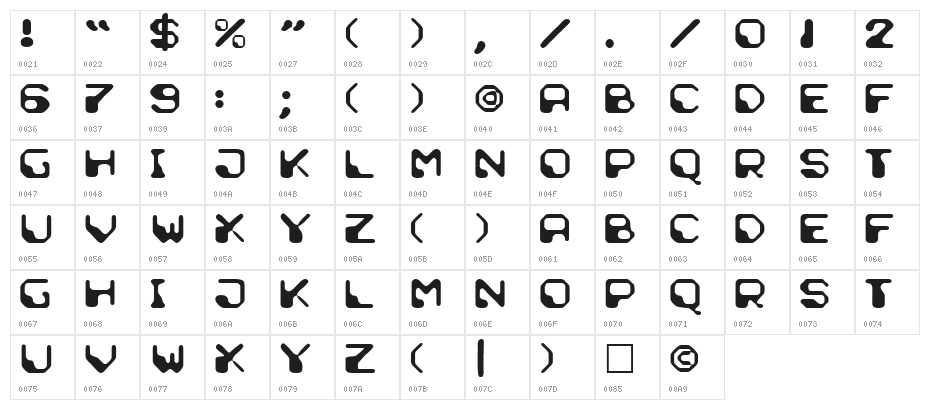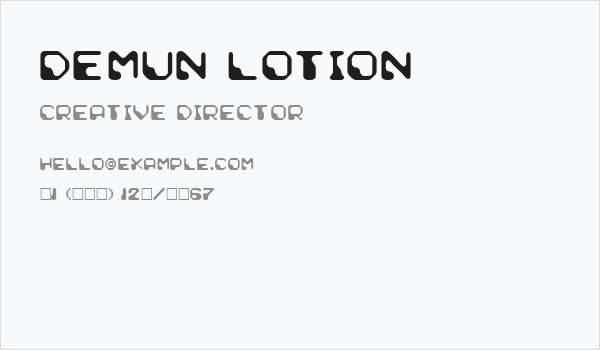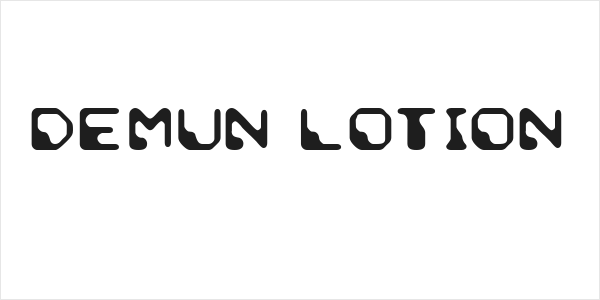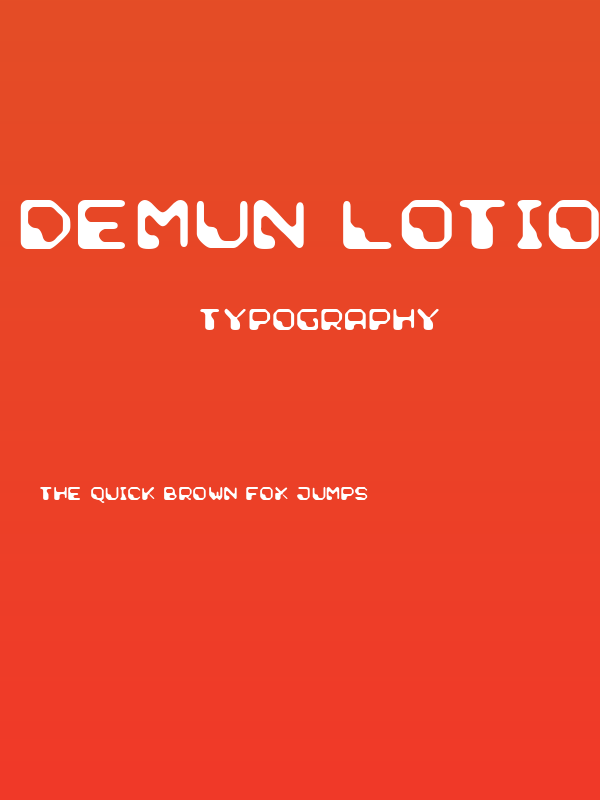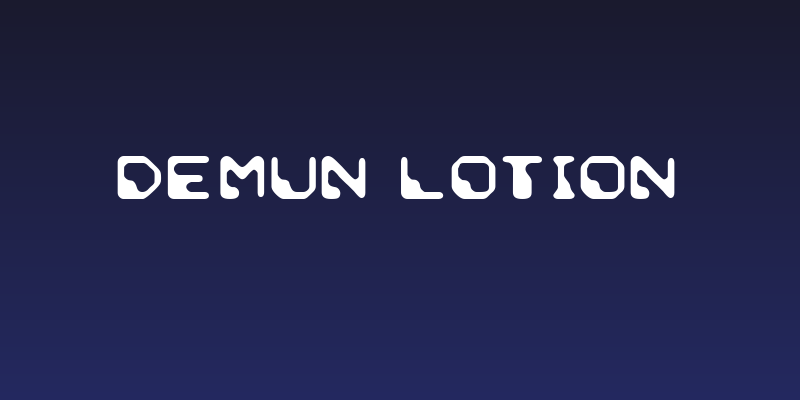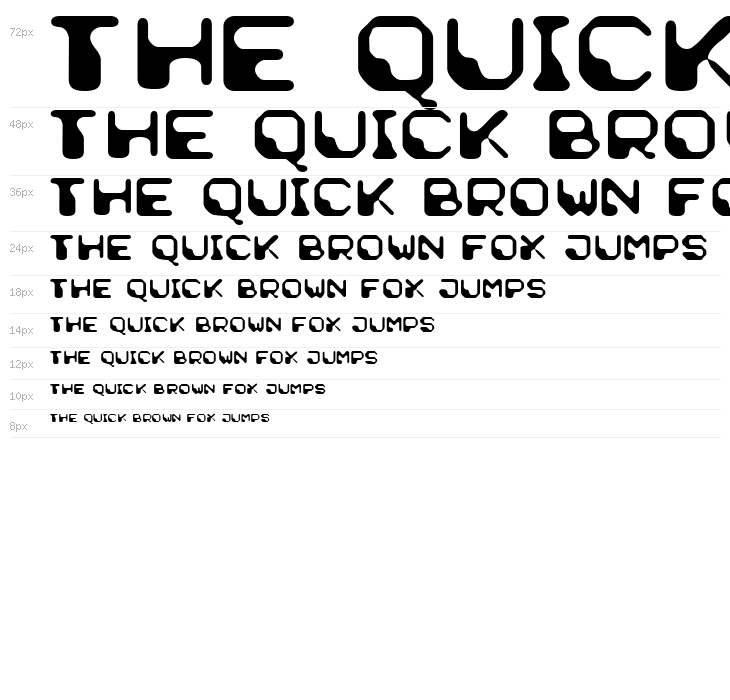
Demun Lotion Font
Demun Lotion Description
This font features a bold, geometric style with a futuristic and industrial feel. The characters are constructed with thick, block-like forms and have a unique, angular design that gives them a distinct, modern appearance. The uppercase and lowercase letters maintain a consistent weight, creating a cohesive look across the alphabet. The numbers and special characters follow the same design principles, ensuring uniformity throughout. The font's strong presence makes it ideal for attention-grabbing headlines or branding materials that require a contemporary edge.
| Proposed Projects | Ideal for use in technology branding, sci-fi themed posters, video game titles, and modern advertising campaigns. |